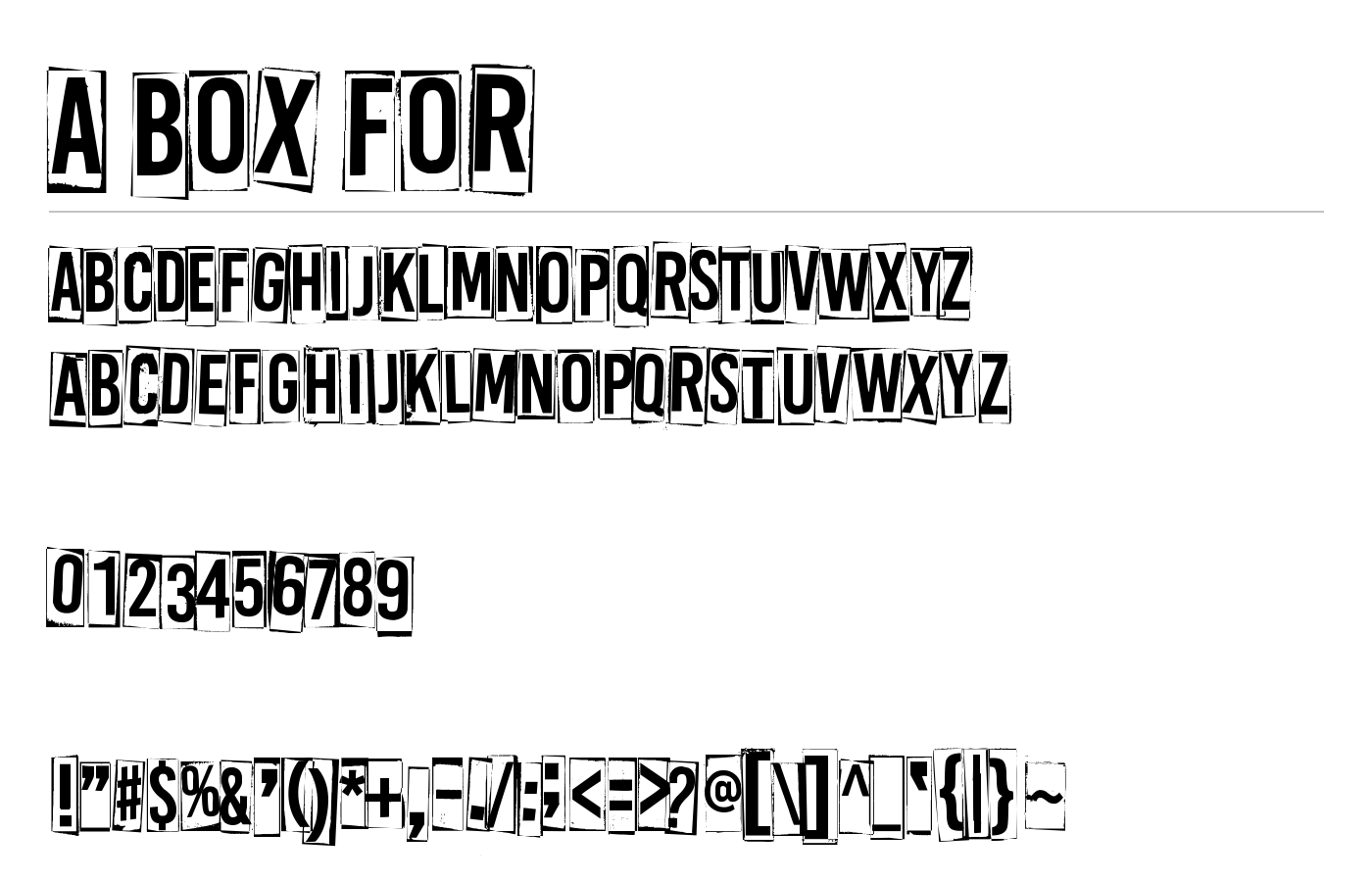
A Box For Font is a bold, uppercase sans serif typeface with a playful ransom note style, featuring irregular letter placement inside rough-edged boxes that create a hand-cut, collage effect. Its uneven spacing and varied letter angles give it an edgy, artistic personality perfect for eye-catching headlines, posters, and creative projects that want to convey energy and a DIY aesthetic. This font works well in designs needing a fun, rebellious vibe with a strong visual impact.
A Box For Font